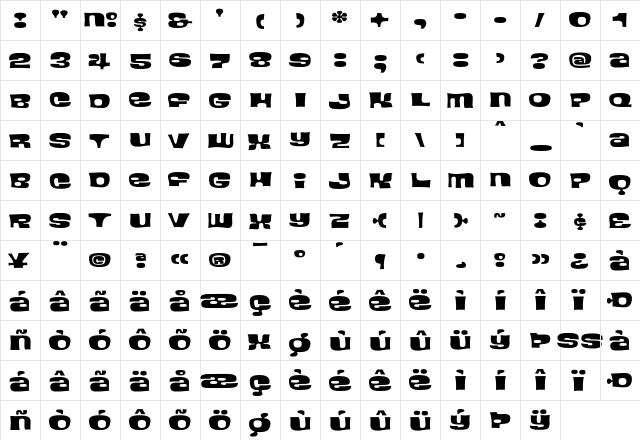
Blackcurrant Regular
Design Context for Blackcurrant Typeface
Blackcurrant is a composed and adaptable typeface that performs quietly and consistently across a wide range of design contexts.